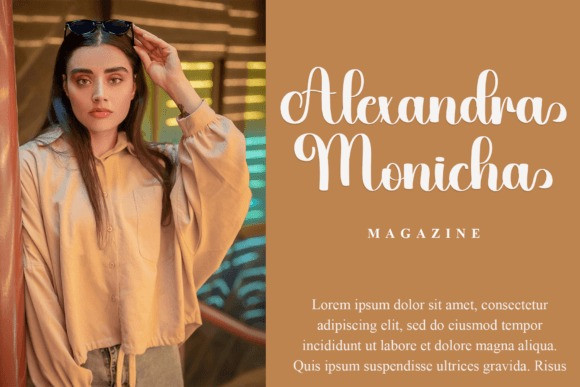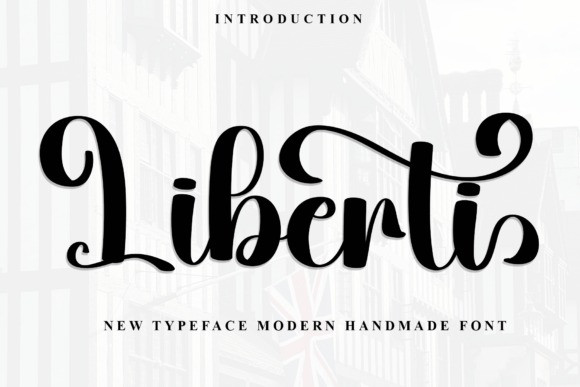
Liberti Script Font
Liberti Script Font is a bold, handwritten font with a strong, expressive style. Its thick strokes and unique letterforms give it a dynamic, modern feel, perfect for making a statement in designs.